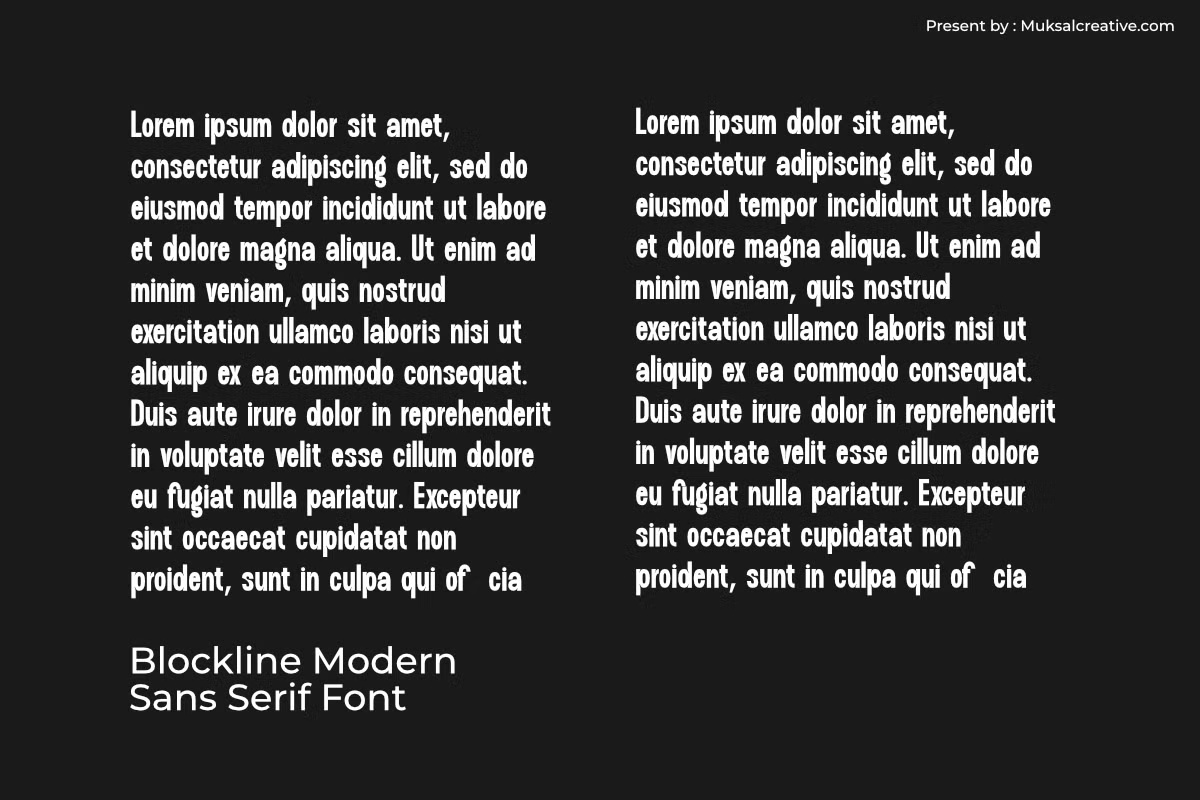
Blockline is tall and narrow, with gently rounded corners and very small gaps inside the letters. In white on black, as on the cover, it looks like stencilled shop lettering cleaned up for the screen.
Muksalcreative shows it handling short paragraphs of dummy text, which works better than you might expect for a condensed face. The glyph sheet lists uppercase, lowercase, numerals and punctuation, plus a full alternate alphabet with even narrower shapes. The listing mentions accented letters too. Because the letters are so narrow, add a touch of tracking at small sizes so they do not run together.
Best uses for Blockline
- Poster headlines
- Magazine titles
- Packaging
- YouTube thumbnails
- Signage
Pair Blockline with a wider sans for body text, such as Inter. Lora gives a serif contrast. For labels, try Space Grotesk.
Blockline Sans Serif Font